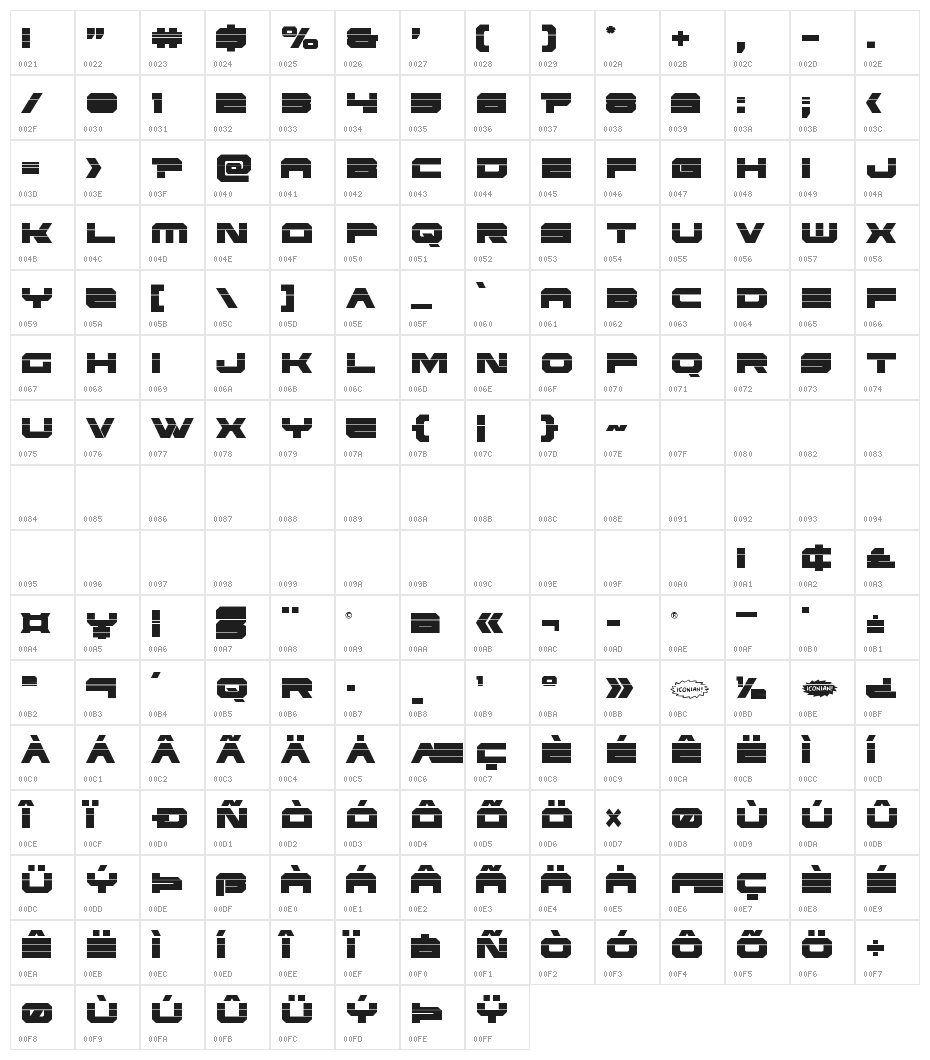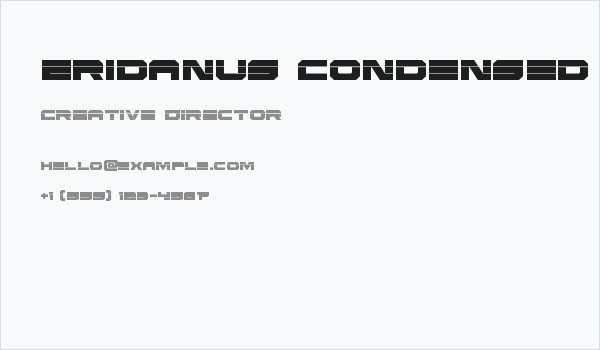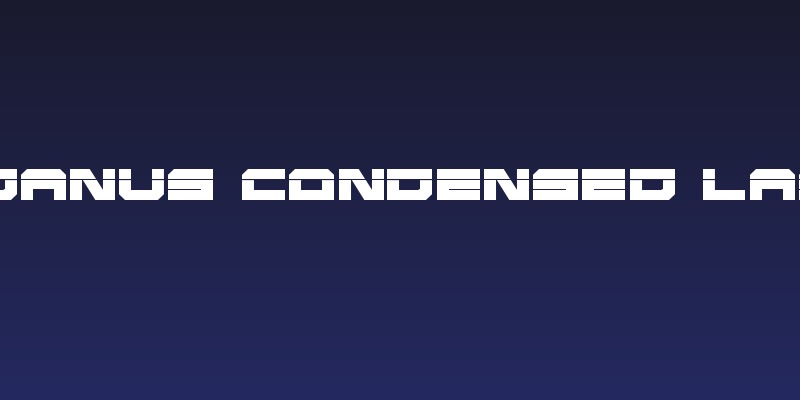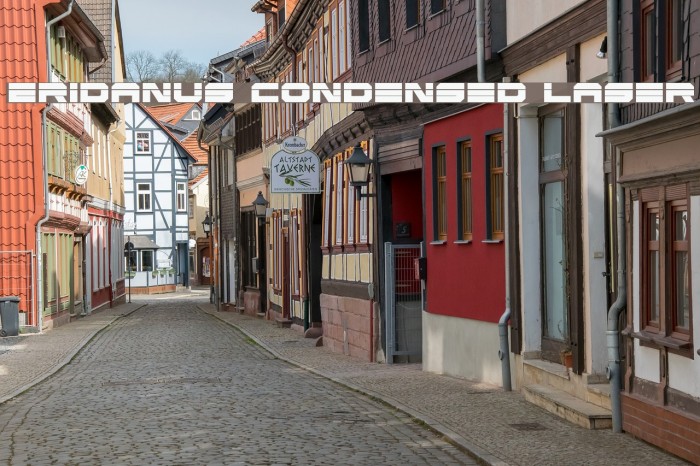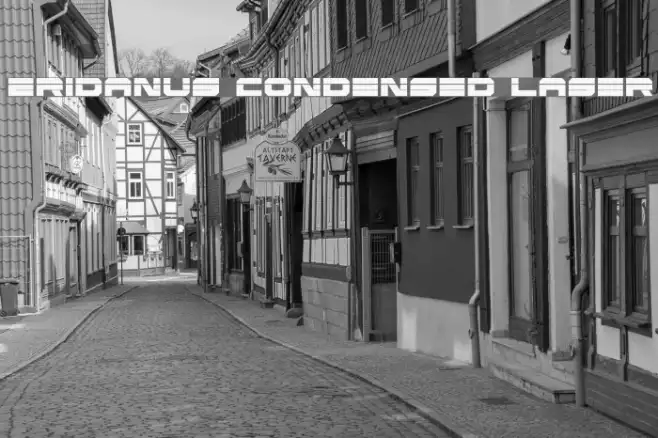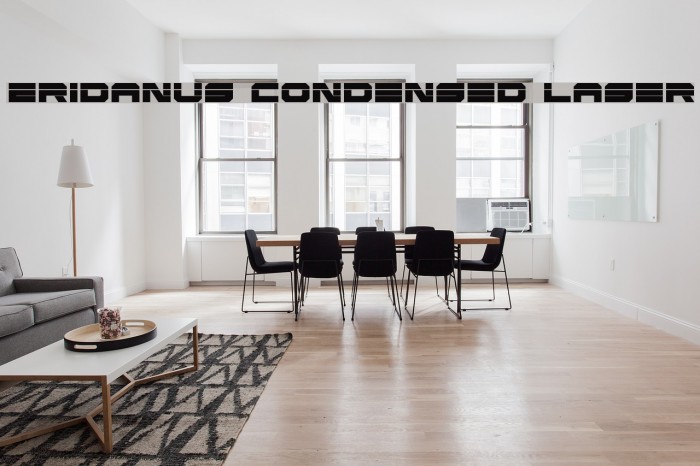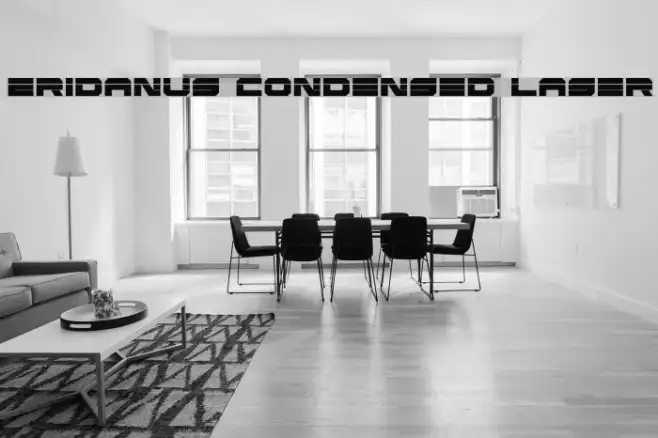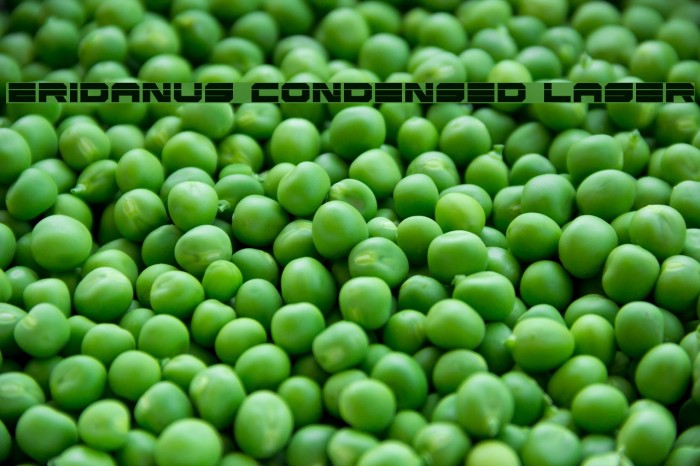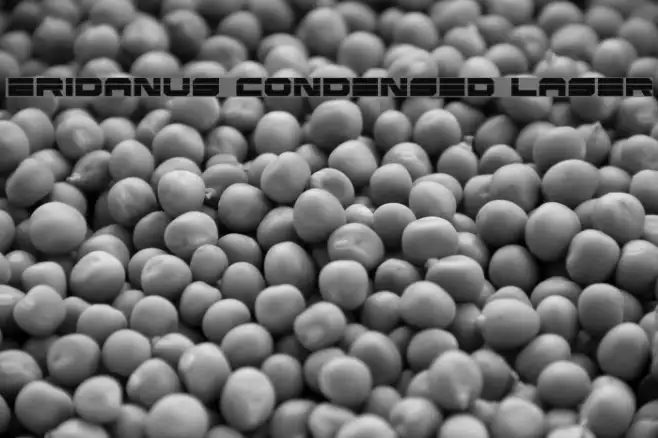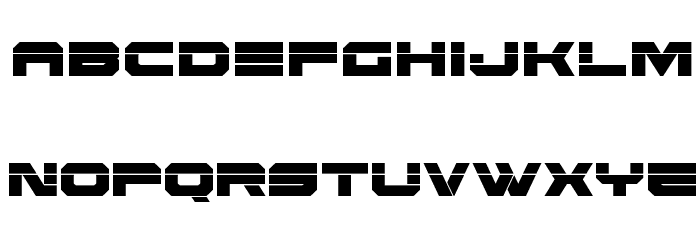
Eridanus Condensed Laser Font
Eridanus Condensed Laser Description
This font features a futuristic and geometric design, characterized by its bold and angular letterforms. The characters are constructed with sharp edges and a condensed width, giving it a compact and modern appearance. The style is reminiscent of digital or sci-fi themes, with a strong emphasis on horizontal and vertical lines. The uniformity in stroke width across all characters contributes to its cohesive and structured look, making it suitable for projects that require a tech-savvy or avant-garde aesthetic. The font's distinctiveness lies in its ability to convey a sense of innovation and forward-thinking design.